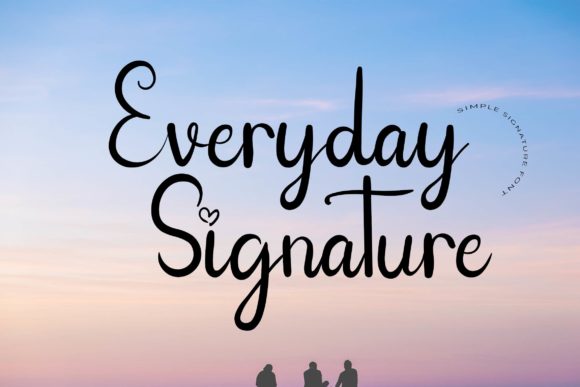
Dive into the realm of creativity with Everyday Signature Font – a captivating script that dances across your designs with effortless grace. This sweet and cursive masterpiece brings a touch of joy and romance to every project, making it the perfect choice for:
- Crafting enchanting comic scripts that ignite imaginations.
- Adorning invitations with a touch of whimsy and elegance.
- Creating heartfelt love letters that express the depth of your emotions.
- Designing eye-catching logos that exude a playful charm.
Each stroke of Everyday Signature Font evokes a sense of warmth and wonder, adding a personal touch to your digital creations. Embrace the artistry of this enchanting script and let your designs bloom with joy and creativity!